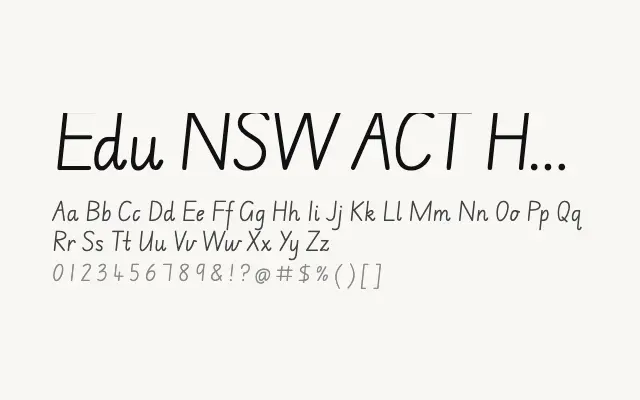
Edu NSW ACT Hand Pre
A pre-cursive script typeface that bridges print and joined handwriting for NSW school students in the intermediate stage of handwriting development.
Edu NSW ACT Hand Pre occupies the transitional zone between unjoined print and full cursive, equipping children with the entry and exit strokes they need to progress to joined writing. Its consistent, measured letterforms make it dependable for teacher-produced worksheets, alphabet charts, and reading primers. Latin Extended script support extends its usefulness for multilingual classroom environments.
Represents the NSW handwriting style at the pre-cursive stage, where letterforms include entry and exit strokes that prepare children for joined writing without yet connecting letters. Stroke details are precise and pedagogically intentional.